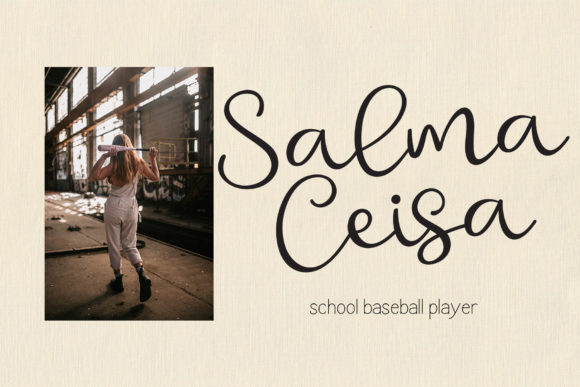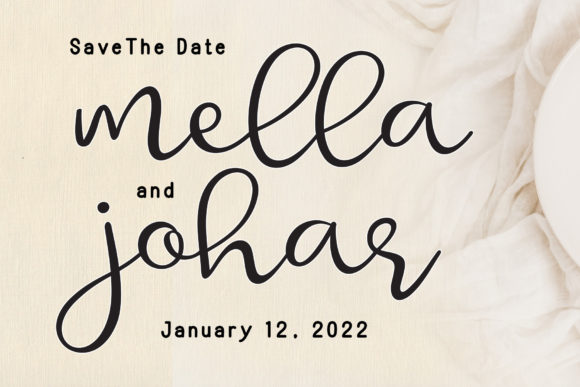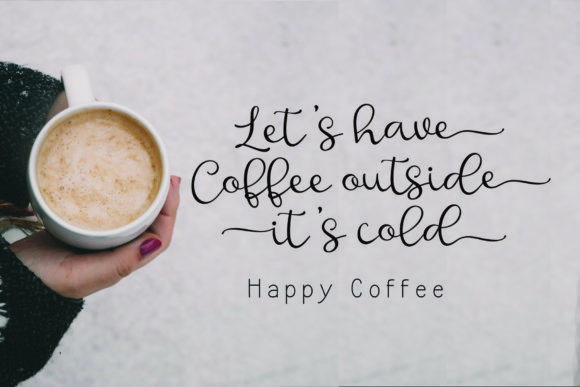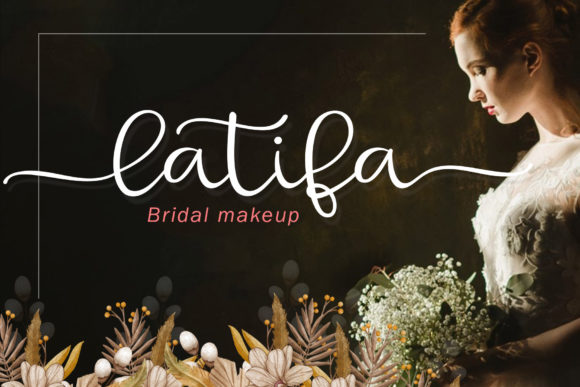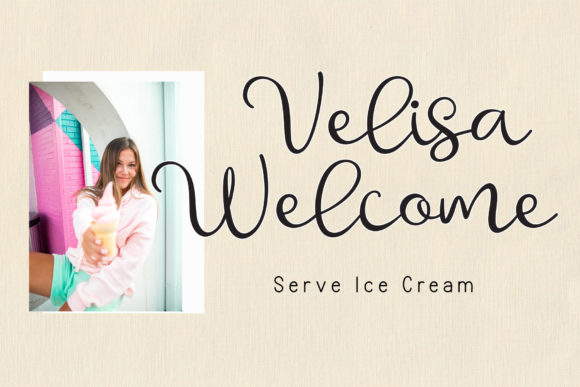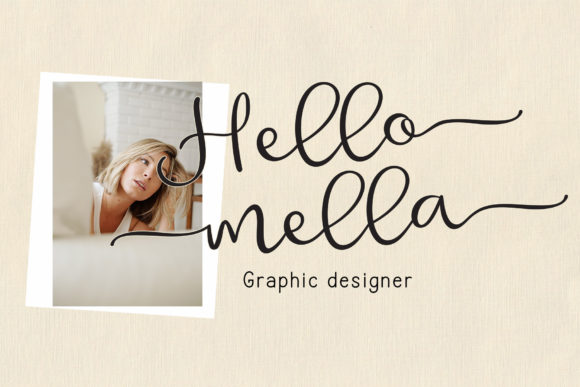
Introduction to Boslow Font
Have you ever found yourself in the middle of a creative project, struggling to find the perfect font to bring your vision to life? The blank page stares back at you, and the cursor blinks impatiently, waiting for inspiration to strike. For designers, this is a familiar feeling – the quest for the perfect font can be a daunting task. But what if I told you that there’s a font that can take your breath away, and make your design dreams a reality? Enter the enchanting Boslow Font, a script font that will transport you to a world of whimsy and wonder.
Boslow Font is more than just a font – it’s a design resource that will elevate your creative projects to new heights. With its charming, playful characters that seem to dance along the baseline, this font is a game-changer for designers. Whether you’re working on a free download project or need a high-quality font for a commercial design, Boslow Font is the perfect choice. And with its transparent background, you can easily customize it to fit your design needs.
Key Features of Boslow Font
- High-quality font design ideal for creative projects requiring a unique aesthetic.
- Includes a transparent background option, allowing for seamless integration into various design elements.
- Available in a single size, making it easy to use in a variety of design contexts.
- Features a high-resolution design, ideal for use in print or digital applications.
- Unique characteristics include a distinctive, modern aesthetic and a wide range of character styles, making it a versatile design tool.
Honest Review: Boslow Font
I recently stumbled upon the Boslow Font while searching for a free download for my creative project. The first thing that caught my attention was the high quality of the font. The clear, elegant lines and beautiful curves make it perfect for a variety of design projects.
- ✨ High quality and elegant design
- ✨ Perfect for creative projects that require a sophisticated look
- ✨ Can be used with transparent background for a modern feel
- ✨ A great addition to any design resource collection
However, I did encounter some limitations when using the Boslow Font. The font family is not as extensive as I would have liked, with only a few styles available. Additionally, the font is not as versatile as some other fonts I’ve used in the past.
- ⚠️ Limited font family options
- ⚠️ Not as versatile as some other fonts
Overall, I’m impressed with the Boslow Font. While it may not be the most comprehensive font family, its high quality and elegant design make it a great addition to any design resource collection. I would definitely recommend it for creative projects that require a sophisticated look.
The Boslow Font is ideal for use in a variety of design projects, including social media graphics, presentations, and marketing materials. Its unique design and transparent background make it a versatile and practical design resource for any creative project.
Great Vibes Font is a high-quality alternative to Boslow Font, with a more refined and sophisticated look. While Boslow Font has a more casual, playful feel, Great Vibes Font is better suited for formal or professional designs.